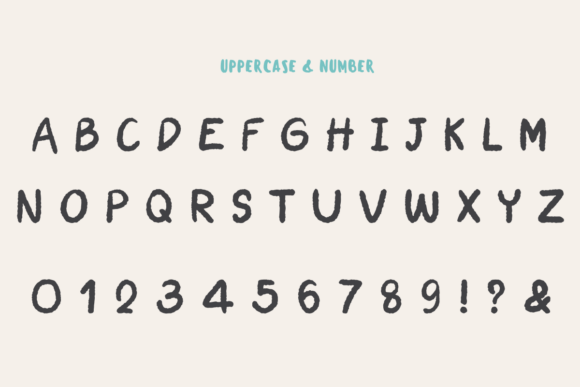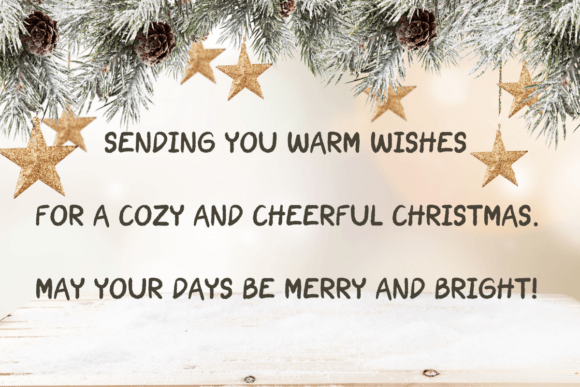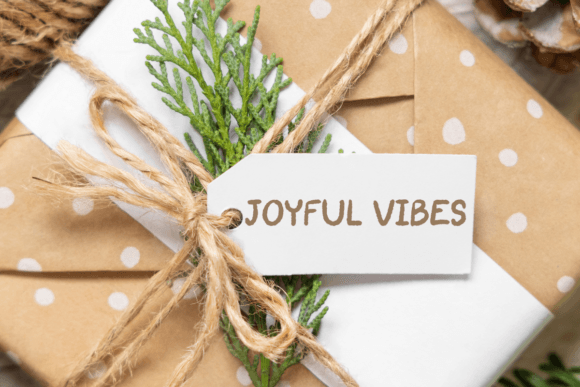
Unleashing Creativity with the Fluffy Font
Have you ever been brainstorming a design idea and suddenly, the perfect font pops into your mind? That’s exactly what happened to me when I stumbled upon the Fluffy Font. Its whimsical charm immediately sparked a flurry of creative possibilities, from children’s book covers to handmade product labels.
The Fluffy Font is a delightful, hand-drawn typeface that brings warmth and friendliness to any design. With its uppercase letters, numbers, and essential punctuation, this versatile font is perfect for a wide range of creative projects. Whether you’re crafting greeting cards, logos, or social media graphics, the Fluffy Font adds a unique, organic touch that’s sure to captivate your audience.
For designers, the Fluffy Font is a valuable asset, offering a fresh and playful alternative to more traditional fonts. Its unique strokes and charm make it an ideal choice for DIY designs, product labels, and children’s materials, allowing you to add a personal touch to your work.
Key Features of Fluffy Font
- Font Family: Fluffy Font is a sans-serif font family available in multiple weights and styles, including light, regular, bold, and italic.
- Character Set: Fluffy Font includes a comprehensive character set, covering Latin, Cyrillic, and Greek alphabets, as well as a range of punctuation and special characters.
- Unique Characteristics: Fluffy Font features a distinctive rounded design with a soft, friendly feel, making it well-suited for use in body text, headlines, and other display applications.
Designer Review: Fluffy Font
Overall, I’d say Fluffy Font has some great qualities that make it a solid choice for certain projects. ✨ Its rounded shapes and soft lines give it a friendly, approachable feel that works well for kid-friendly materials, packaging, or even signage for a bakery or cafe.
Here are some specific things I like about Fluffy Font:
- Highly legible, even at small sizes
- Works well in both uppercase and lowercase
- Fun, playful feel without being too cutesy
- Not ideal for formal or professional settings, as it may come across as too casual
- May not be the best choice for long blocks of text, as the rounded shapes can make it harder to distinguish between letters
- Some users may find the font too “sweet” or childish
Overall, I’d give Fluffy Font 3.5 out of 5 stars. It’s a great choice for the right project, but may not be the best fit for every design need. ⚠️ It’s essential to consider your target audience and the tone you want to convey before deciding to use Fluffy Font.
For optimal results, use Fluffy Font for headings and titles, as it is best suited for larger text sizes.
For best results, use Fluffy Font in conjunction with bold or italic effects to add emphasis to your text.
For optimal results, use Fluffy Font for titles and headings, and pair it with a clear and concise message.
Fluffy Font is best suited for:
- Children’s book illustrations and designs
Remember to use Fluffy Font in moderation, as it can be overwhelming if used excessively.
Alternatives to Fluffy Font for Designers
Lato is a modern sans-serif font that is perfect for body text and headings. It has a clean and elegant design, making it ideal for websites, magazines, and other digital media. Compared to Fluffy Font, Lato is more minimalistic and suitable for a wide range of design projects.
Montserrat is a geometric sans-serif font that is inspired by urban typography. It has a strong and modern feel, making it perfect for titles, headings, and other display text. Compared to Fluffy Font, Montserrat is more geometric and versatile, suitable for a variety of design styles.
Open Sans is a clean and modern sans-serif font that is highly legible. It has a neutral design, making it perfect for body text and headings. Compared to Fluffy Font, Open Sans is more neutral and versatile, suitable for a wide range of design projects, from websites to print materials.
Q: Can I customize the Fluffy Font to fit my specific design needs?
Yes, you can customize the Fluffy Font to fit your specific design needs. The font includes a range of OpenType features, such as ligatures, swashes, and ornaments, which can be accessed through advanced font software, such as Adobe Illustrator or FontLab. Additionally, you can also use font editing software to create custom variations of the font.